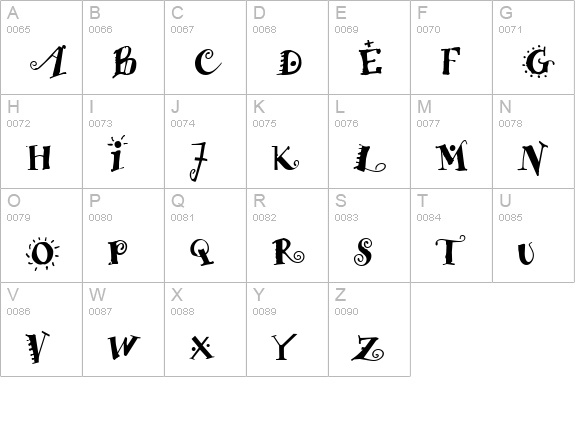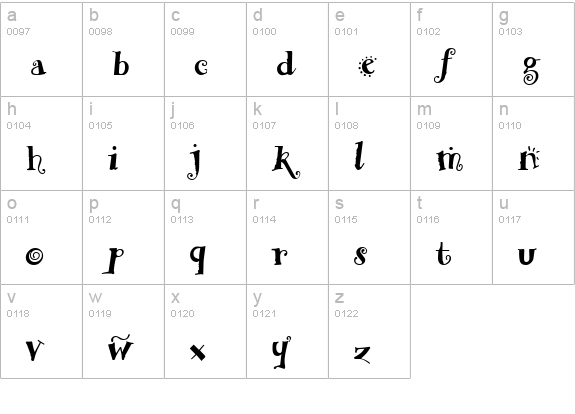
Introducing the exquisite Troubadour font, a striking typeface that effortlessly blends elegance and charm. With its graceful curves and intricate details, Troubadour exudes a sense of sophistication and style that is perfect for a wide range of design projects. This versatile font can be used for anything from invitations and greeting cards to logos and branding materials. Its timeless appeal makes it a favorite among designers looking to add a touch of class to their creations. Best of all, Troubadour is available for free download at FontsMarket.com, making it easily accessible to anyone looking to elevate their designs with this beautiful typeface. Don't miss out on the opportunity to enhance your projects with the timeless beauty of Troubadour font.